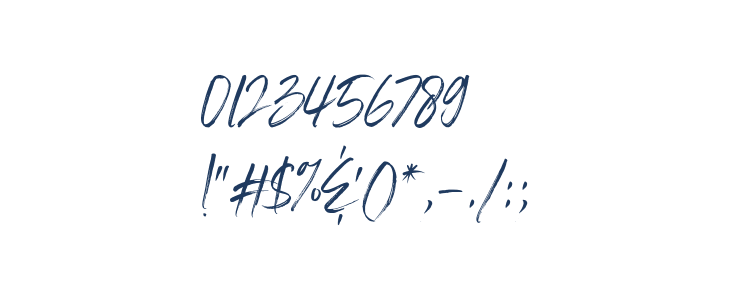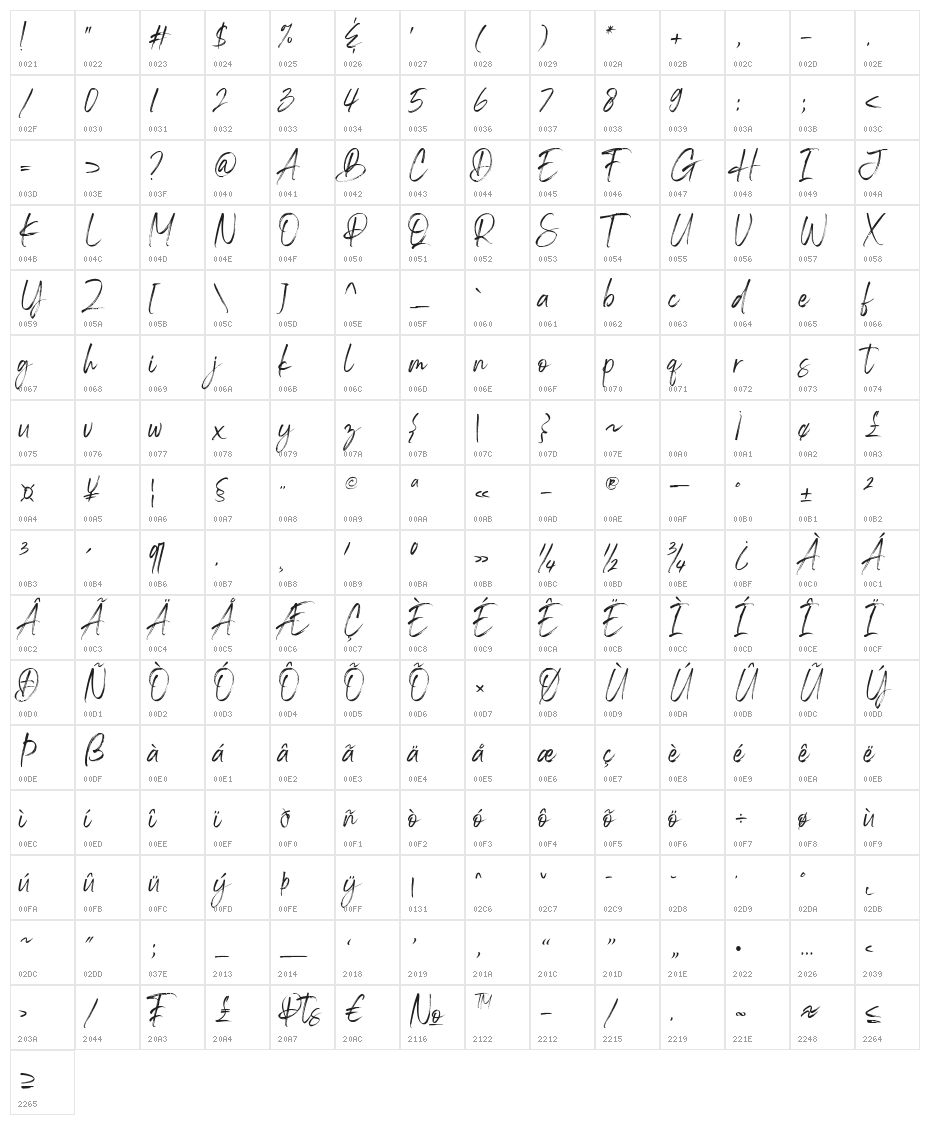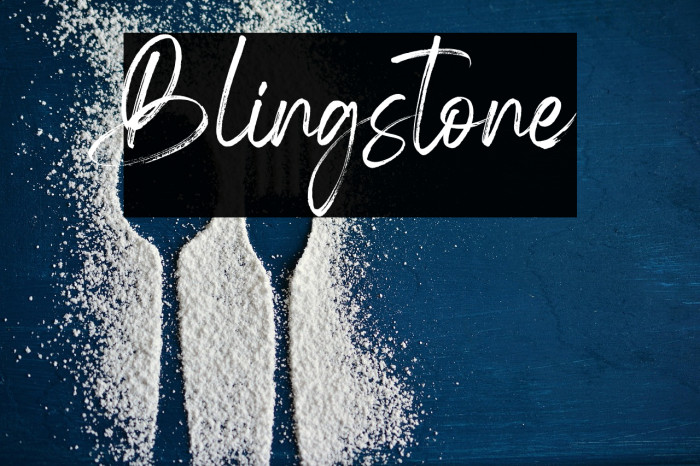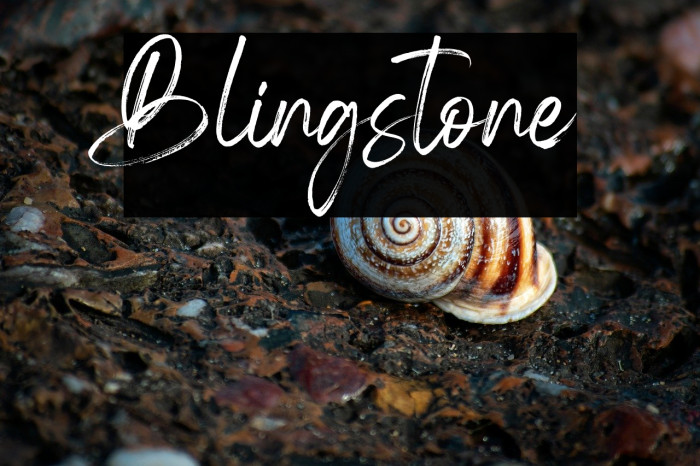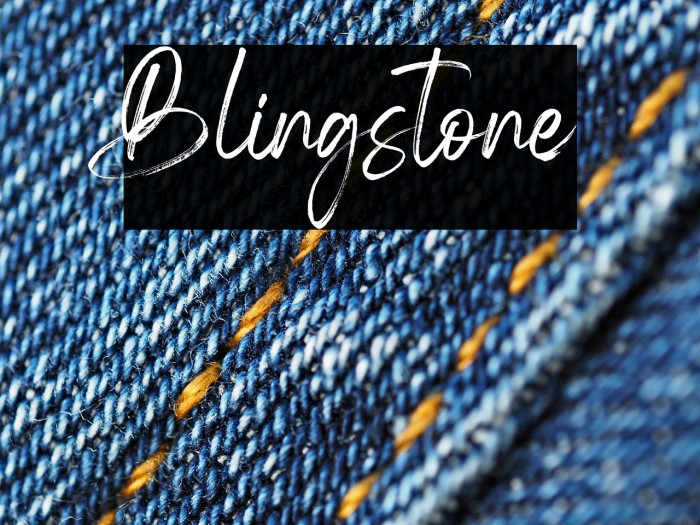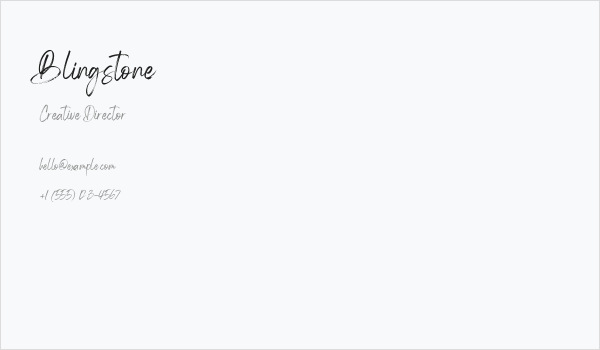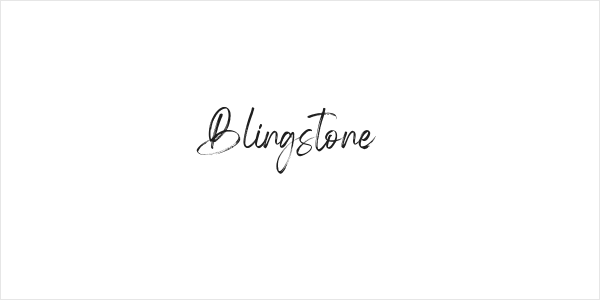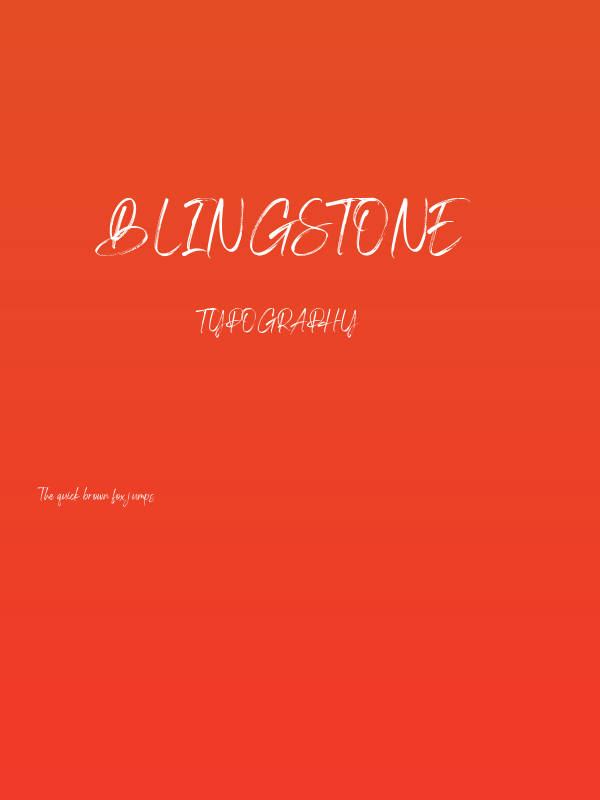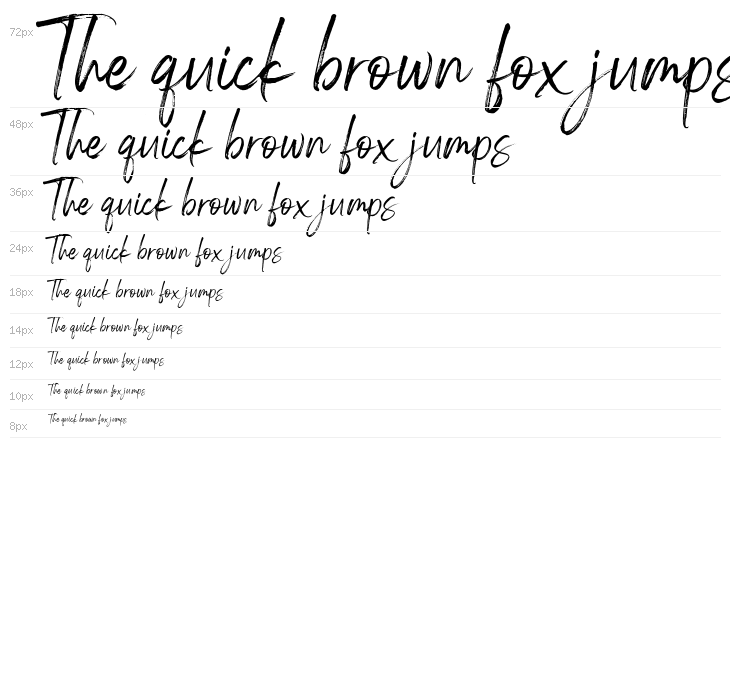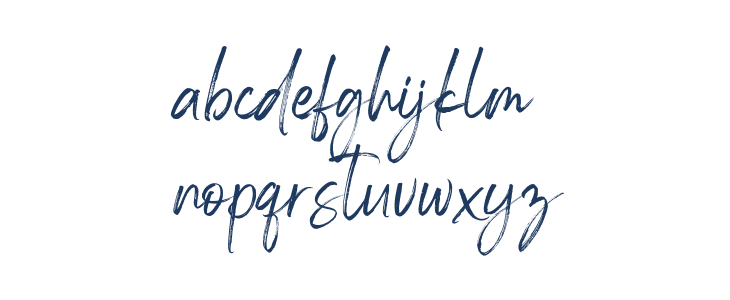
Blingstone Font
Blingstone Description
This font exudes a dynamic and energetic style, characterized by its brush-like strokes and fluid, cursive design. The letters have a hand-drawn appearance, with varying thickness that adds a sense of movement and personality. The uppercase and lowercase letters maintain a consistent flow, while the numbers and special characters integrate seamlessly with the overall aesthetic. The font's artistic flair makes it ideal for projects that require a personal touch or a creative edge.
| Use Case | Logos, Invitations, Posters |
| Proposed Projects | Ideal for branding, invitations, posters, and artistic projects that require a personal and creative touch. |